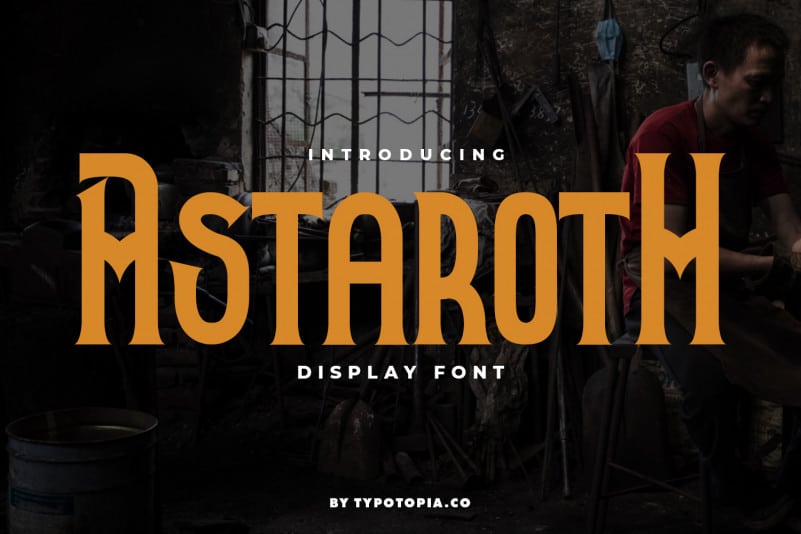
Astaroth Display Font Free
Introducing Astaroth Display Font is a Display Typeface with Semi-Vintage Style. This type of font perfectly made to be applied especially for logos, Poster, stationery, magazines, menus, books, invitations, greeting cards, packaging, labels, apparel, marketing, business cards, etc.